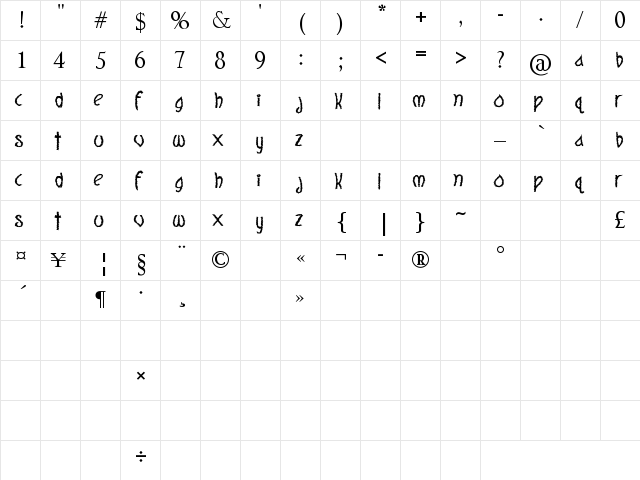
Quite Mighty Regular
Design Context for Quite Mighty Typeface
Quite Mighty is a composed and adaptable typeface that performs quietly and consistently across a wide range of design contexts.